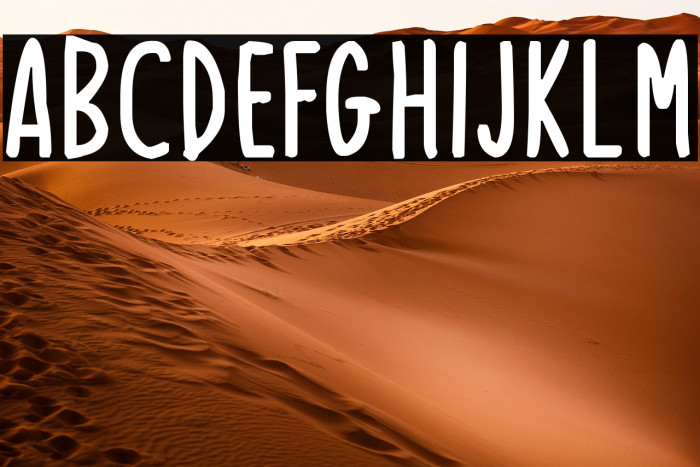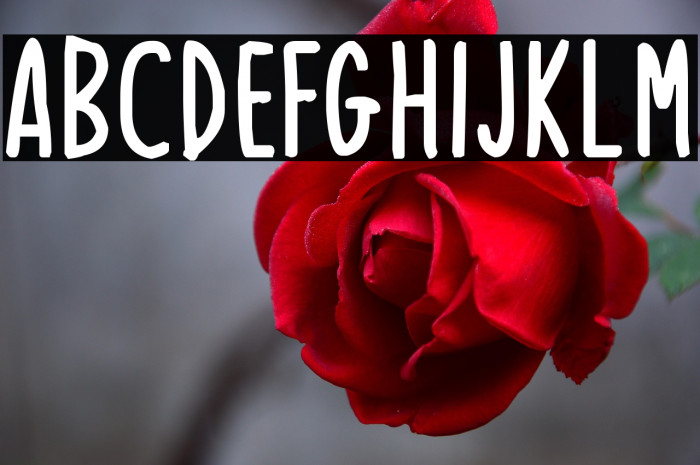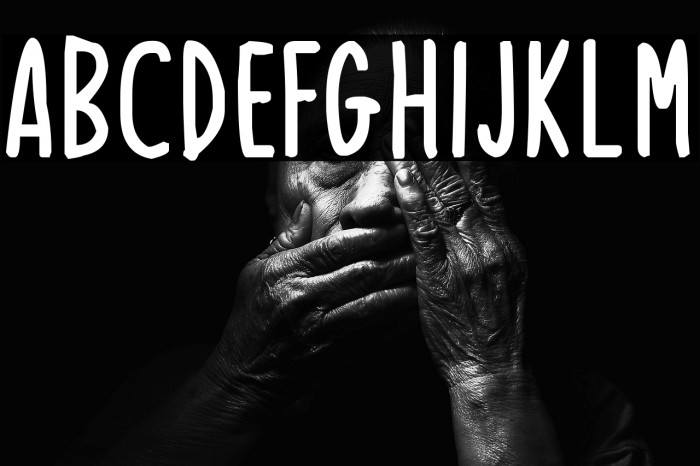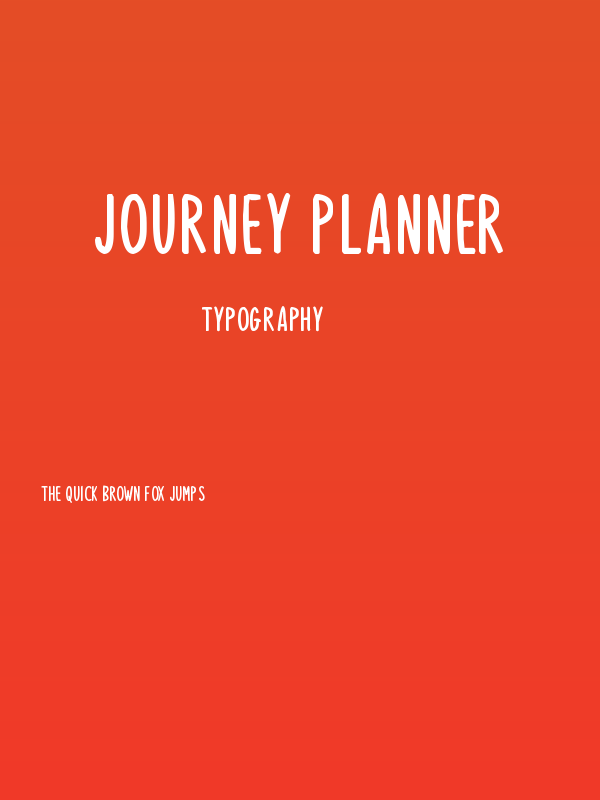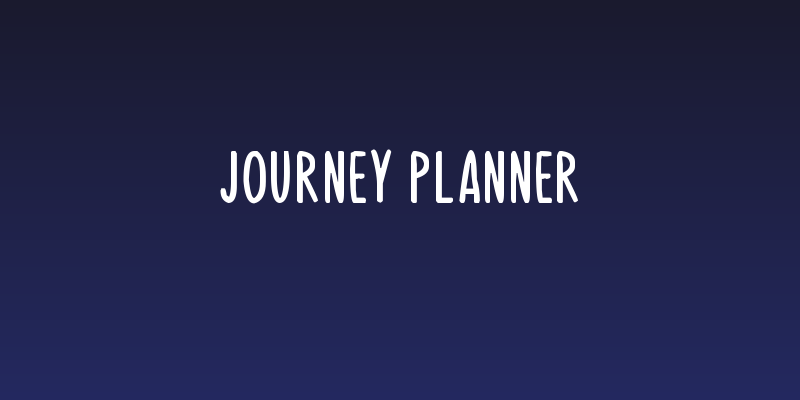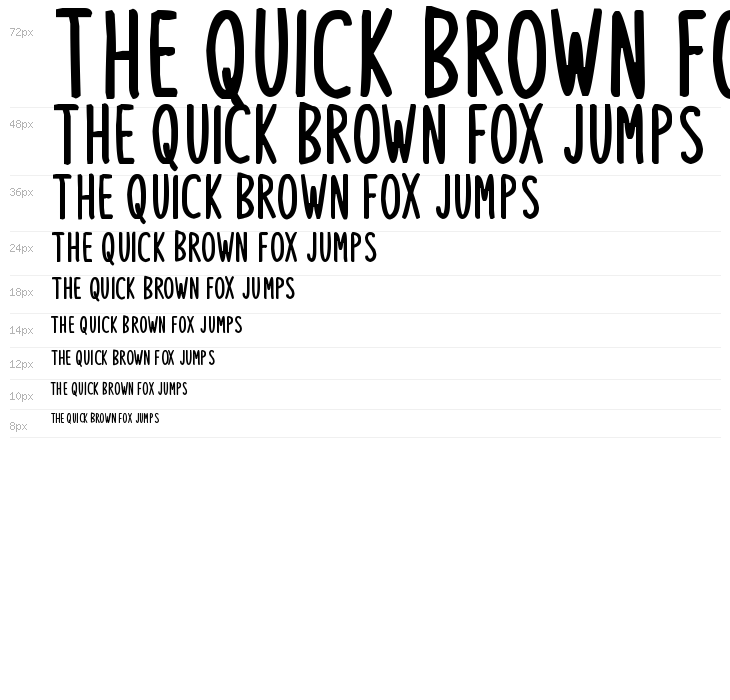
Journey Planner Font
Journey Planner Description
This font features a playful and bold handwritten style, characterized by its thick, rounded strokes and slightly irregular letterforms. The uppercase and lowercase letters maintain a consistent height, contributing to a cohesive and uniform appearance. The font's informal and friendly aesthetic makes it suitable for casual and creative projects. The numerals and special characters are designed to match the overall style, ensuring visual harmony across all text elements. Its unique charm and personality make it stand out, making it ideal for projects that require a touch of whimsy and individuality.
| Proposed Projects | Ideal for children's books, greeting cards, posters, and playful branding. |